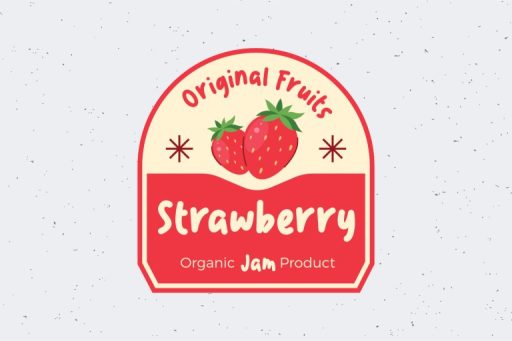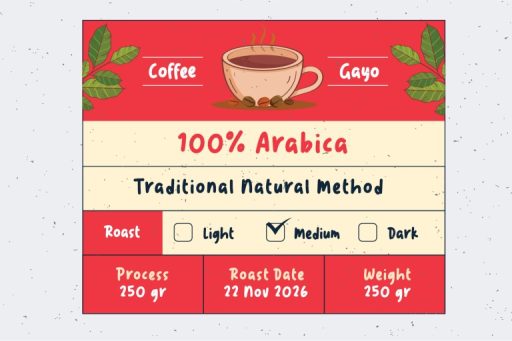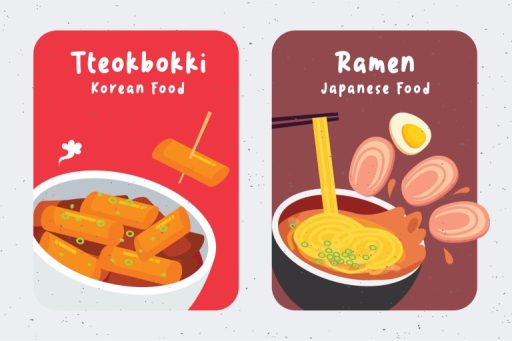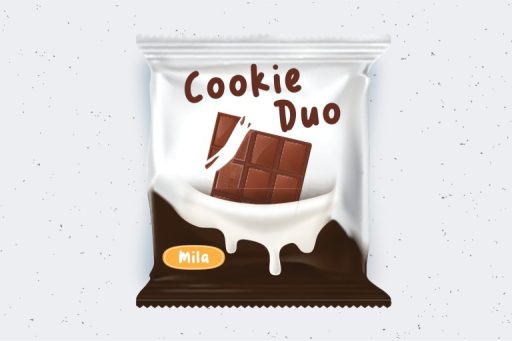
Mango Cakes Font
Mango Cakes – Handwriting Font
Introducing the ‘Mango Cakes’ Handwritten Font – your recipe for standout designs! Whether you’re crafting captivating YouTube thumbnails, designing charming packaging, or adding a personal touch to your creations, this font serves up a delightful blend of uniqueness and creativity. Elevate your brand with the sweetness of ‘Mango Cakes‘ and let your designs leave a lasting impression. Perfect for the modern creator’s palette!